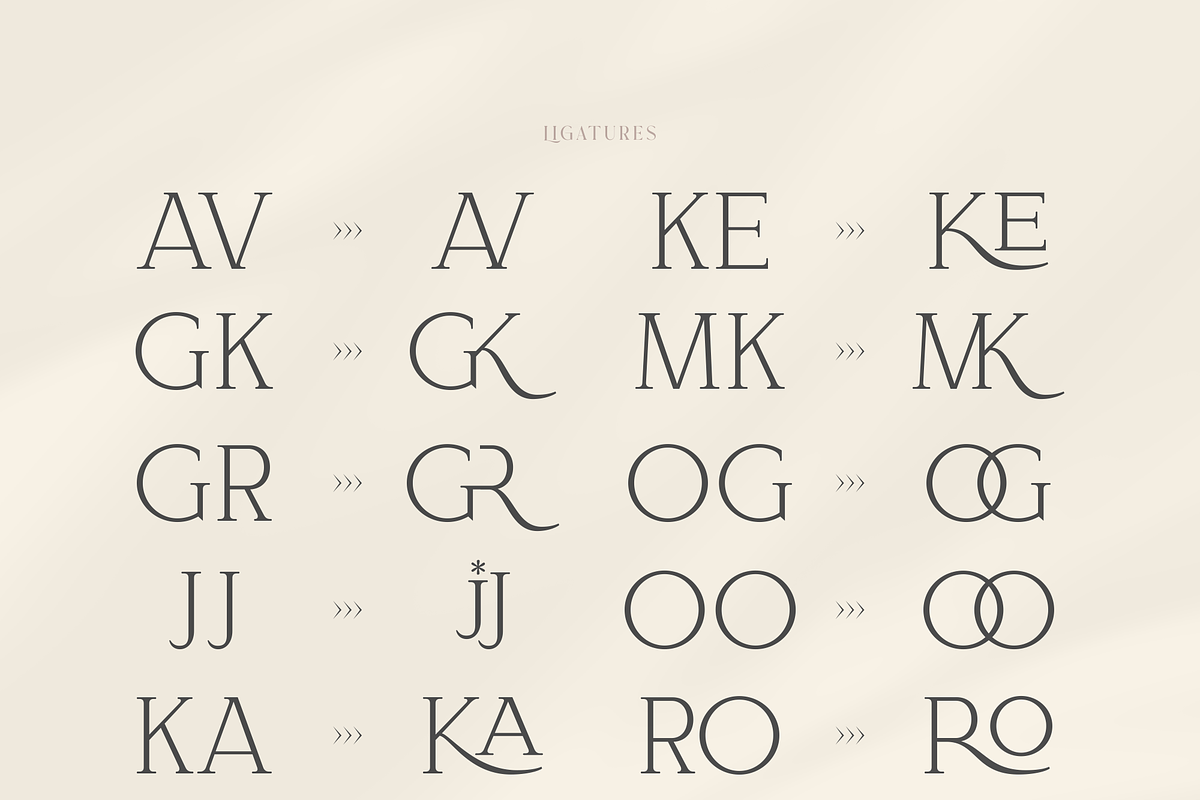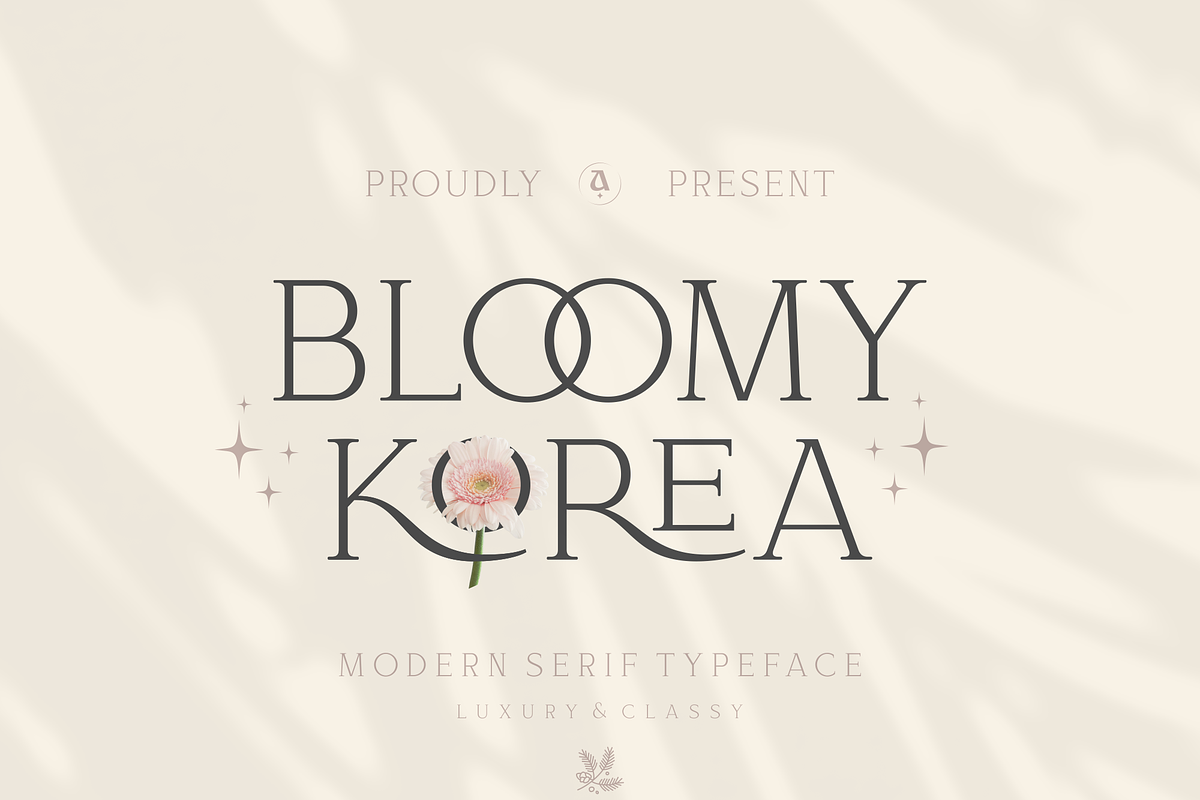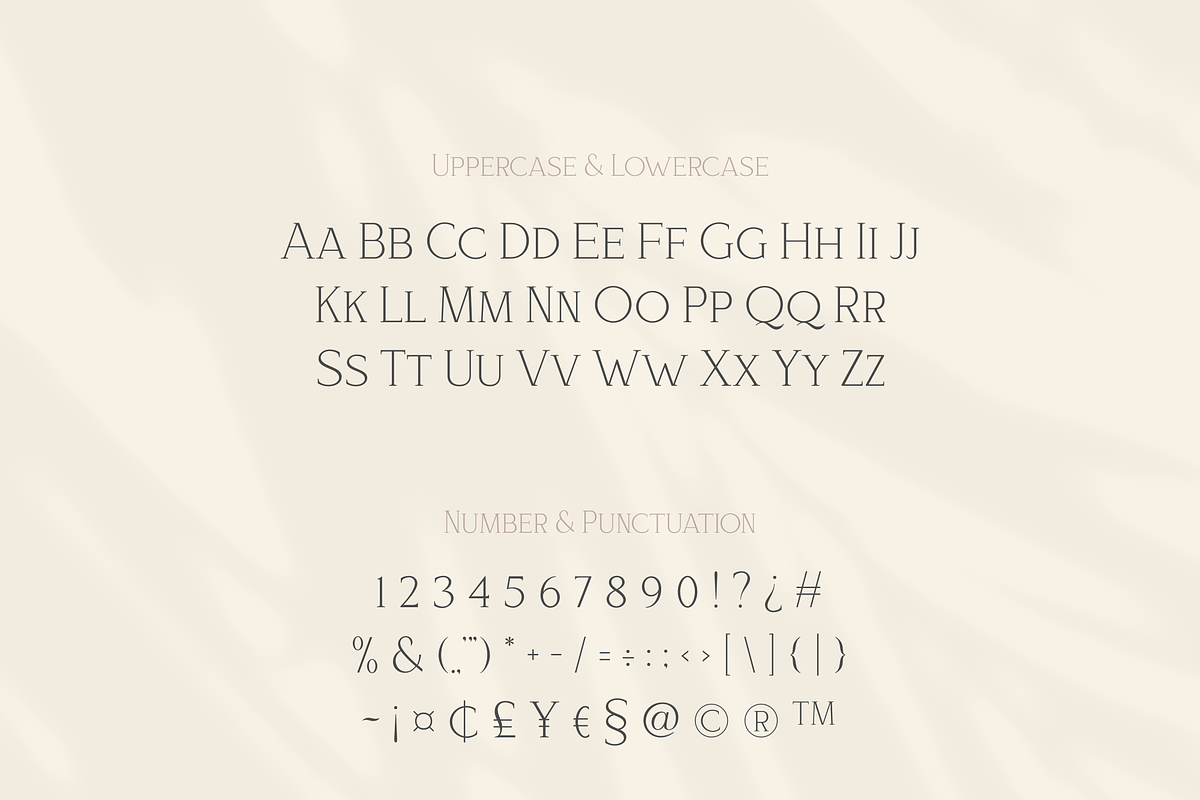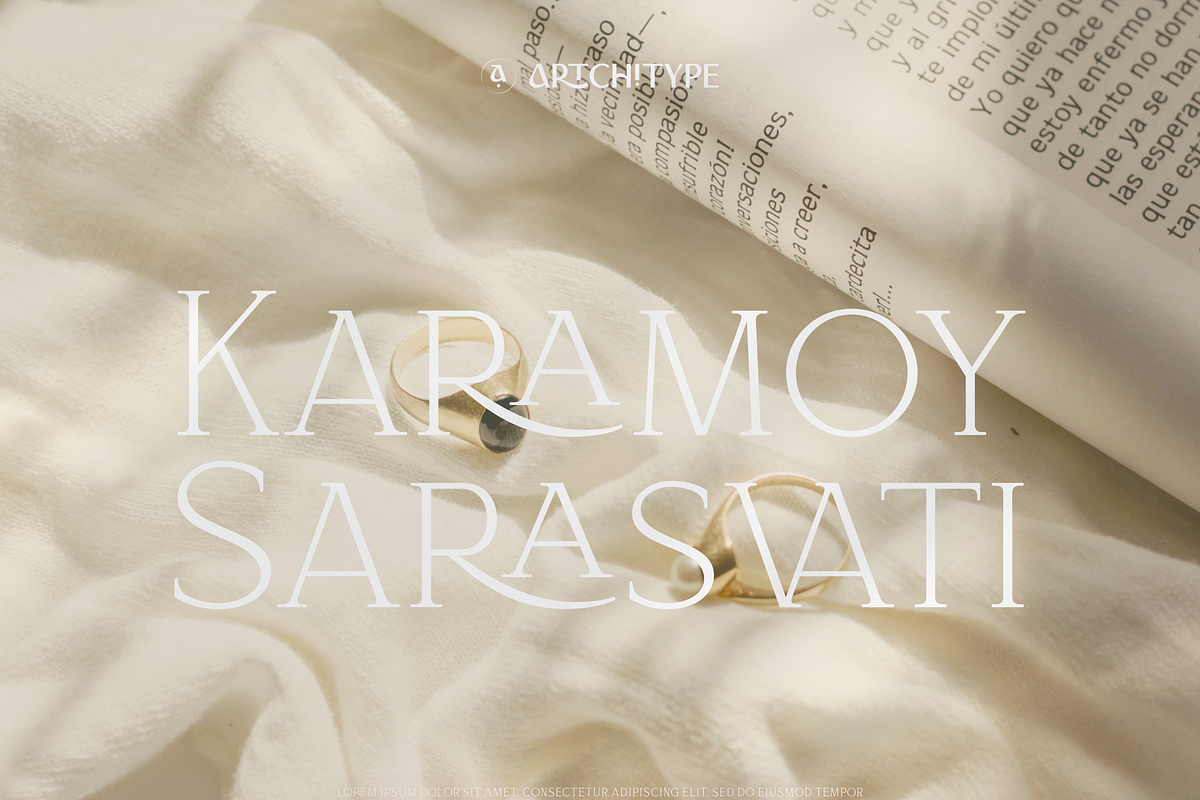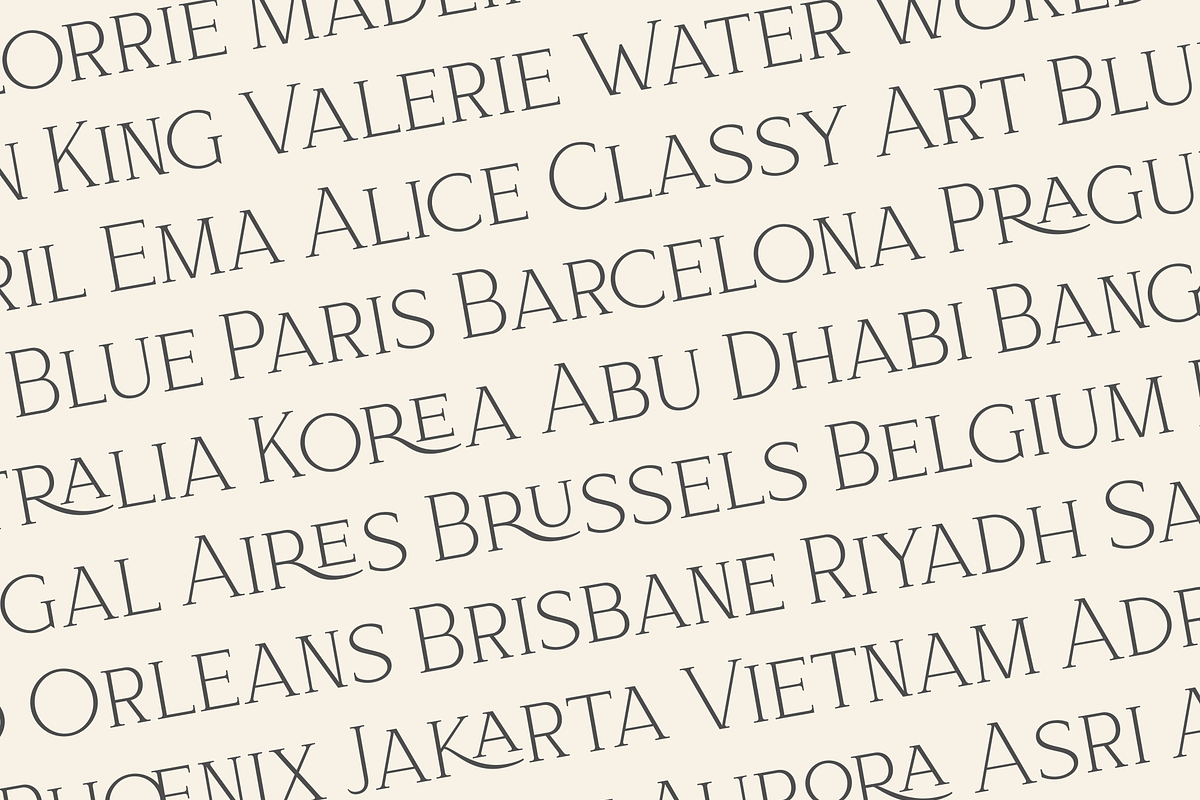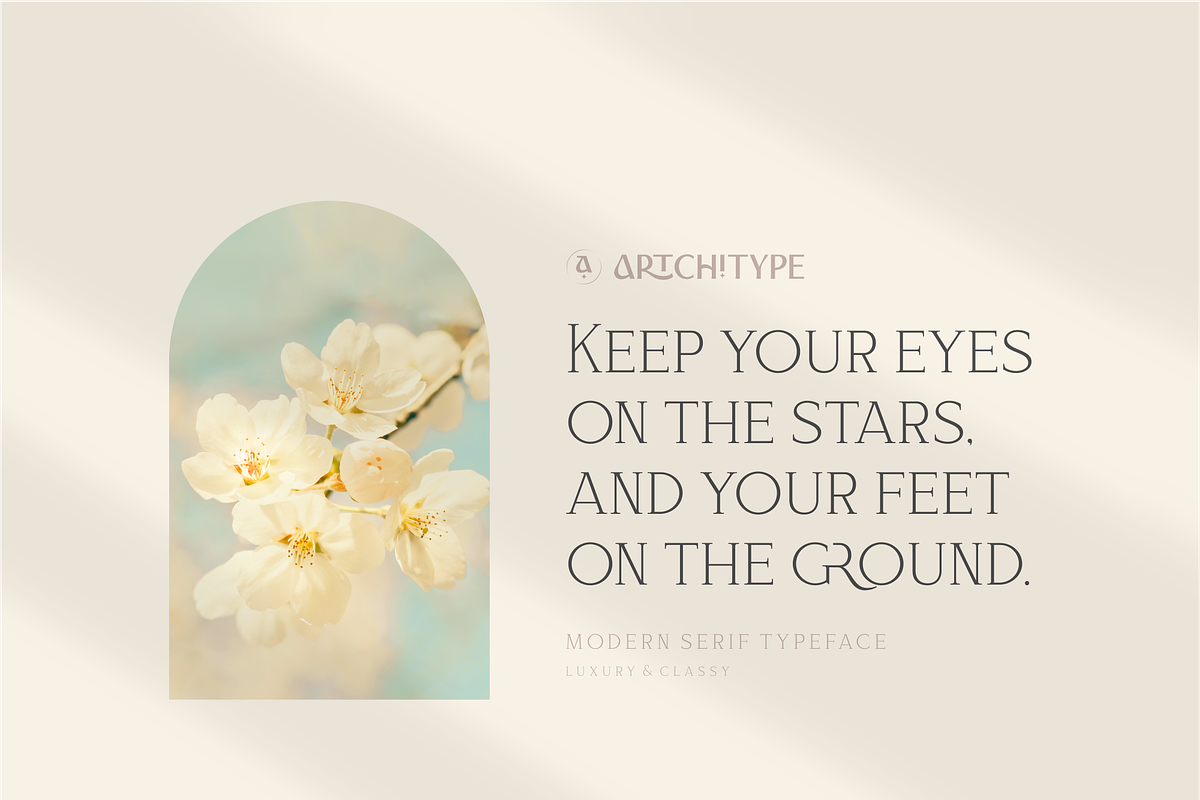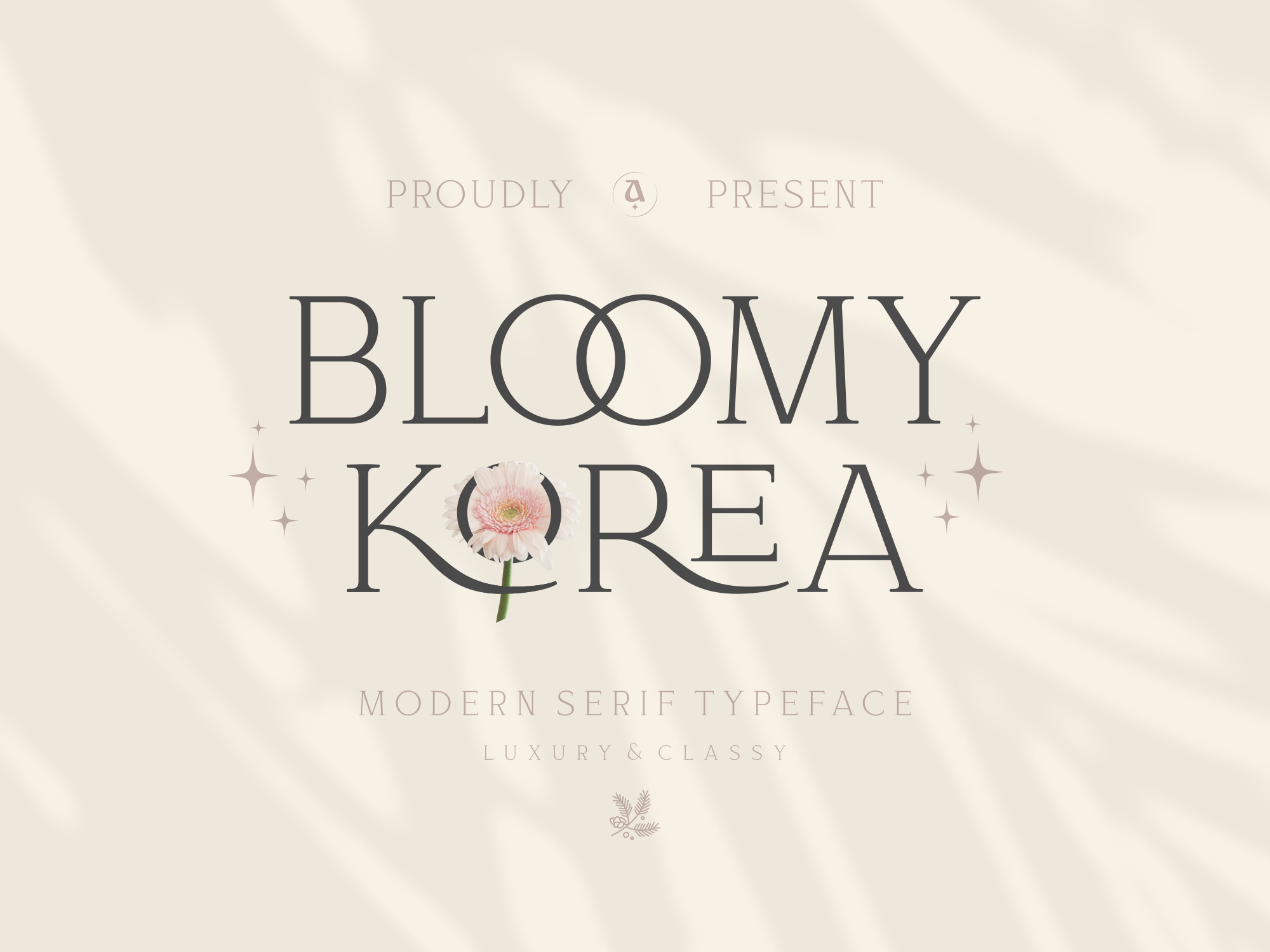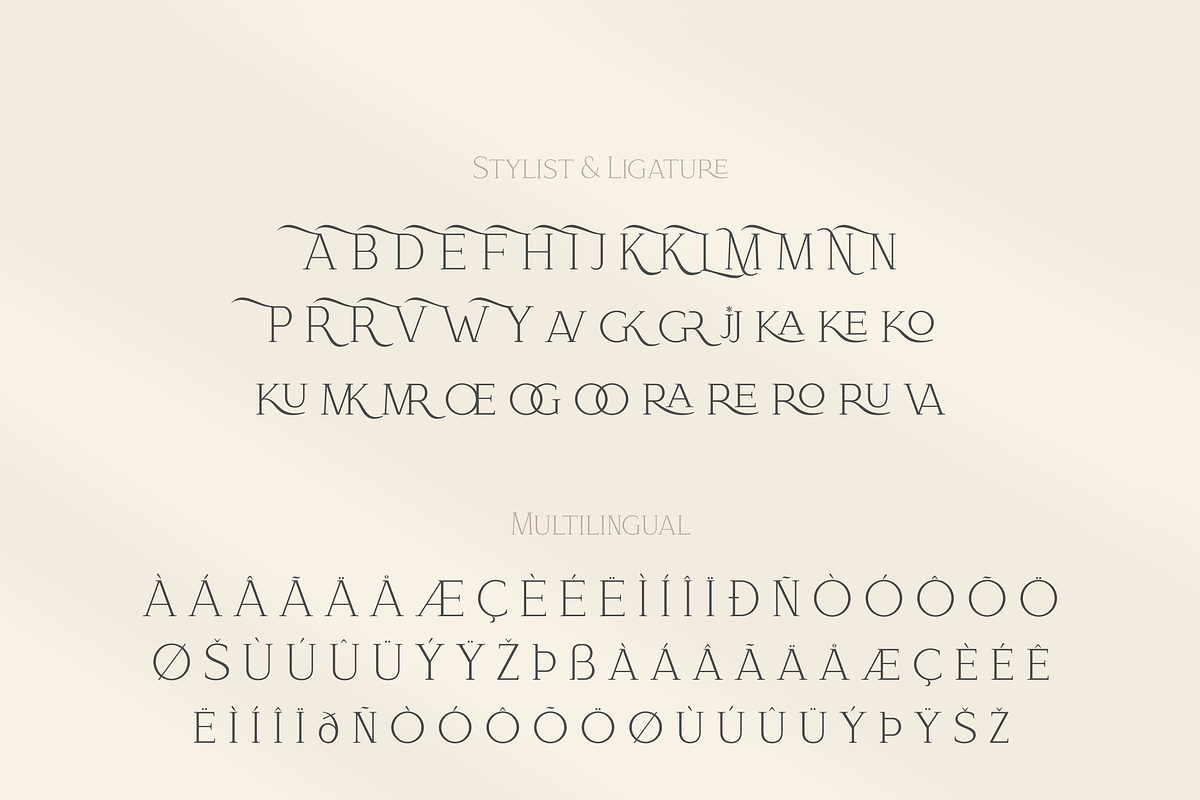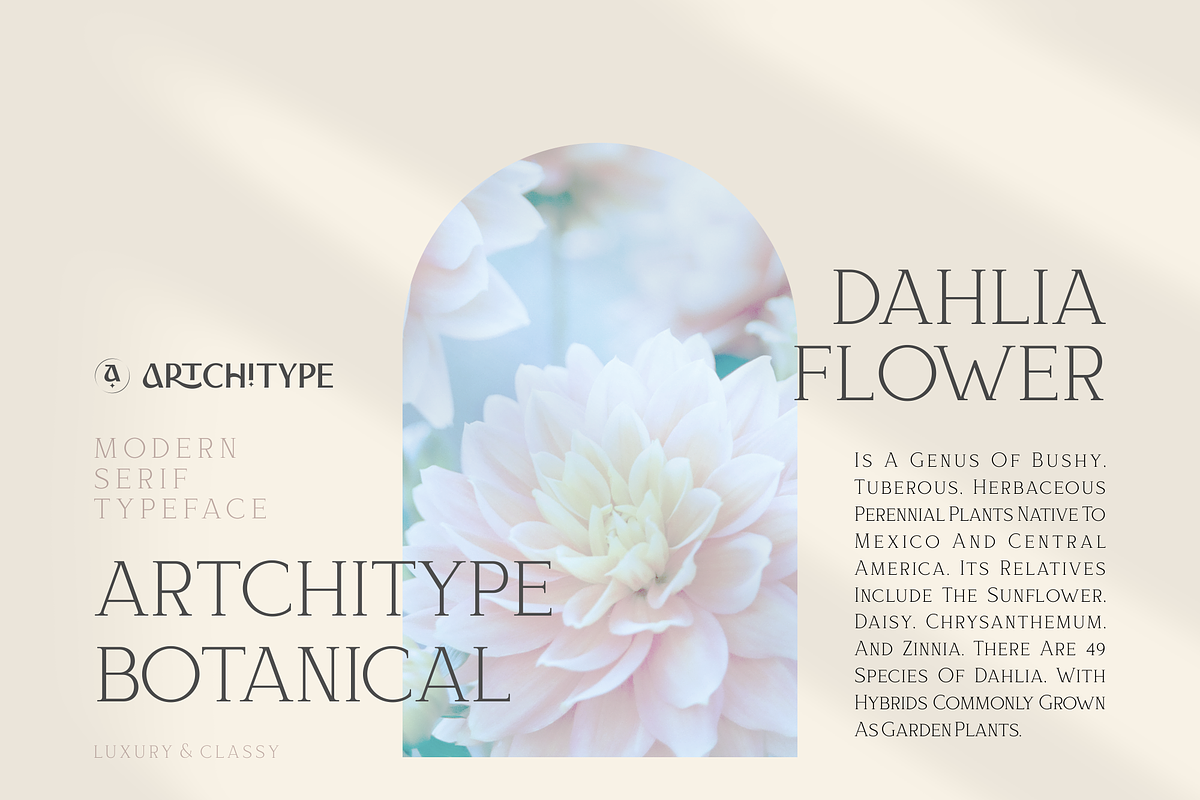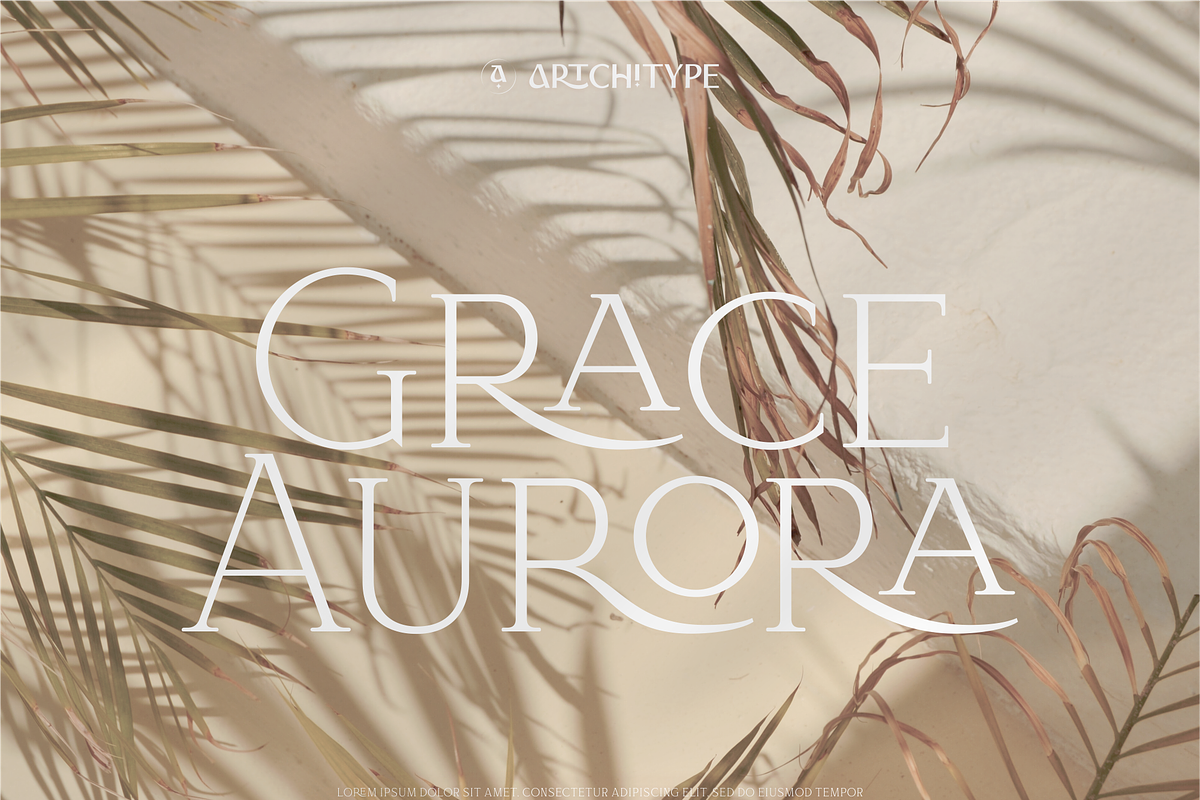
Bloomy Korea - Modern Serif Font
Bloomy Korea is classy display serif font with 280+ characters. Includes uppercase, lowercase characters, multilingual, alternates and most common other characters.
Bloomy Korea is perfect for logos, social media posts, product packaging, product designs, and other projects.